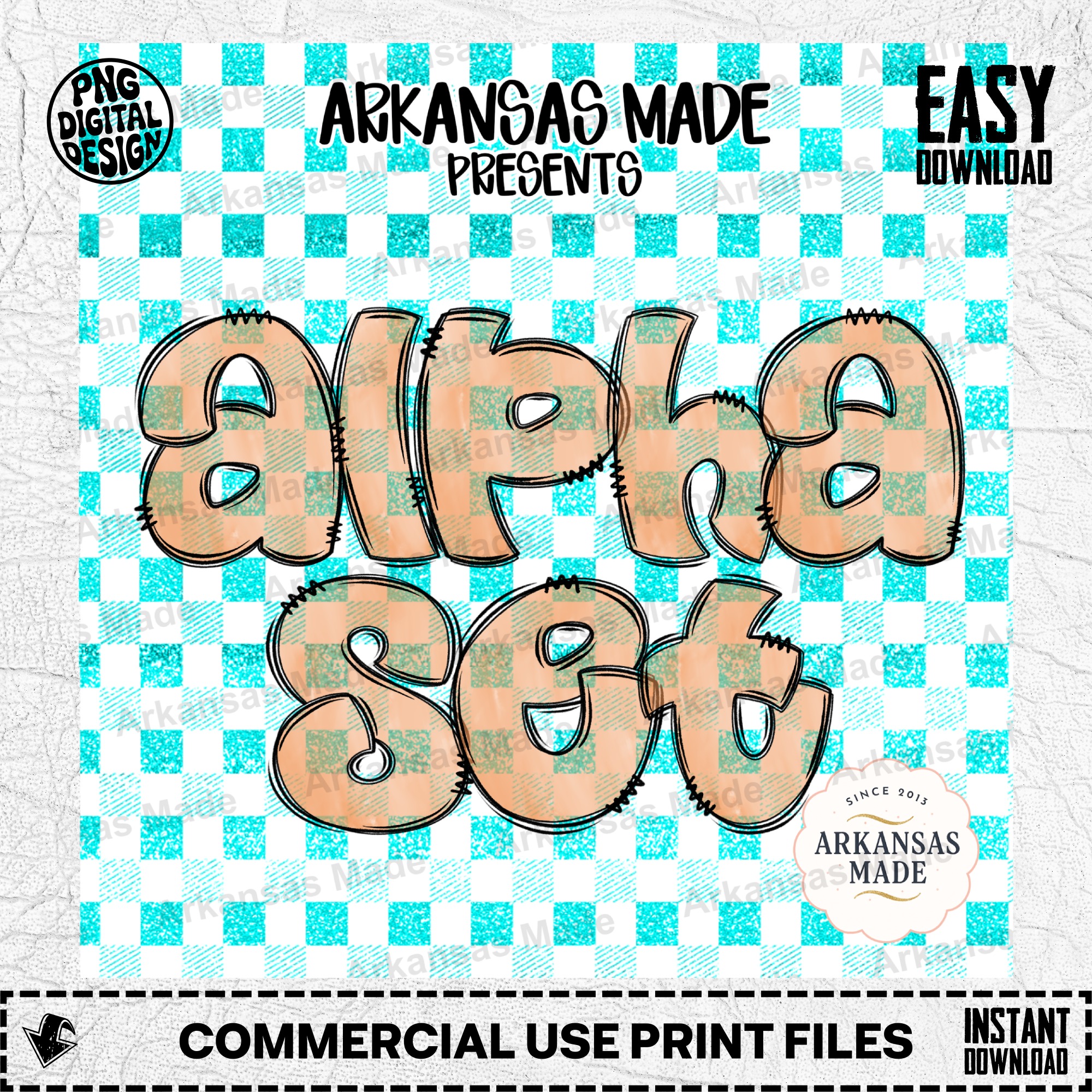
Rustic Peach Teal Plaid Alphabet PNG Set – Distressed Farmhouse Letters Font Digital Download for Sublimation & DIY Crafts
Elevate your creations with our Rustic Peach Teal Plaid Alphabet PNG Set! This distressed farmhouse font is perfect for sublimation, craft projects, and custom designs. Infuse country charm into your DIY projects with these unique letters featuring a faux buffalo plaid print and sketchy outline effect. Ideal for crafters, small business owners, and anyone looking to personalize t-shirts, mugs, signs, or nursery decor. Create heartwarming gifts for birthdays, baby showers, teacher appreciation, or special events.